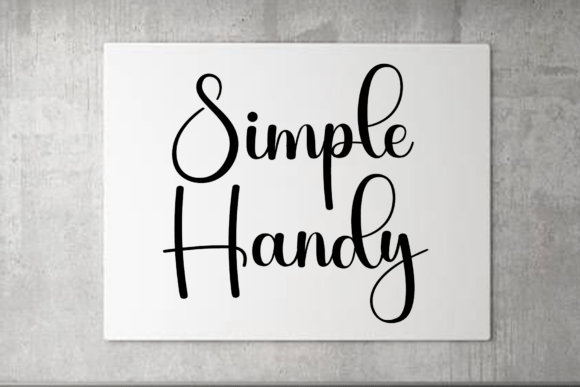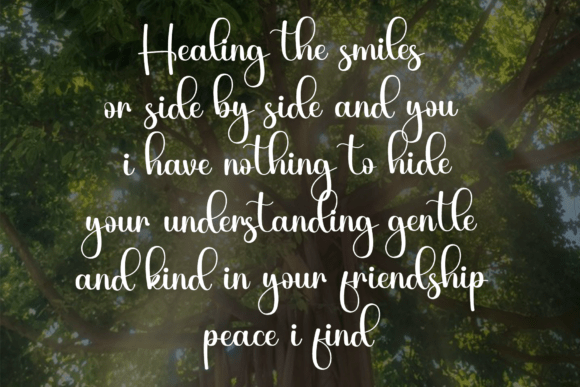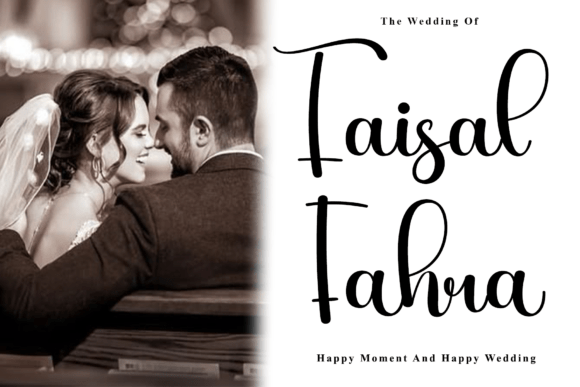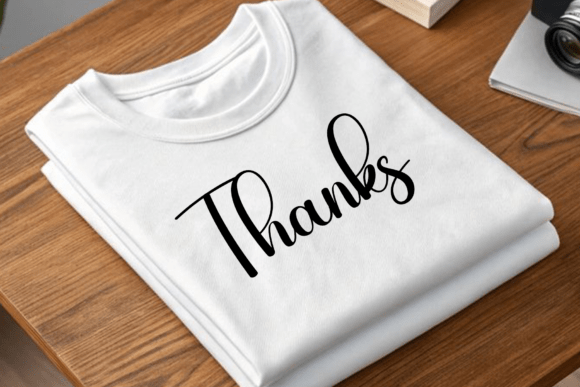
Introduction to Fashions Astrophiles Font
Fashions Astrophiles is a sophisticated and rhythmic script font that balances a calligraphic style with a warm, organic aesthetic.
Its defining characteristic is the use of sweeping, looping ascenders that create a sense of customized, artisanal artistry This font is a premier choice for artisanal food branding, boutique product packaging, upscale lifestyle marketing, and creative editorial titles.